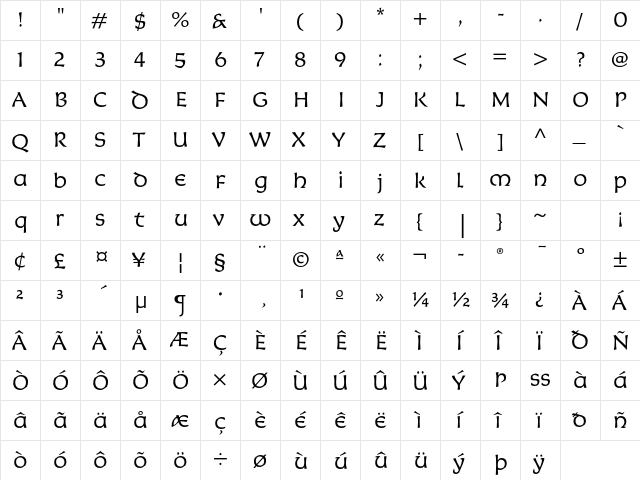
Korigan ITC Std Light
| Designer | Thierry Puyfoulhoux |
Design Context for Korigan ITC Std Typeface
Korigan ITC Std is a composed and adaptable typeface that performs quietly and consistently across a wide range of design contexts. Its slender proportions lend an understated elegance to any composition.